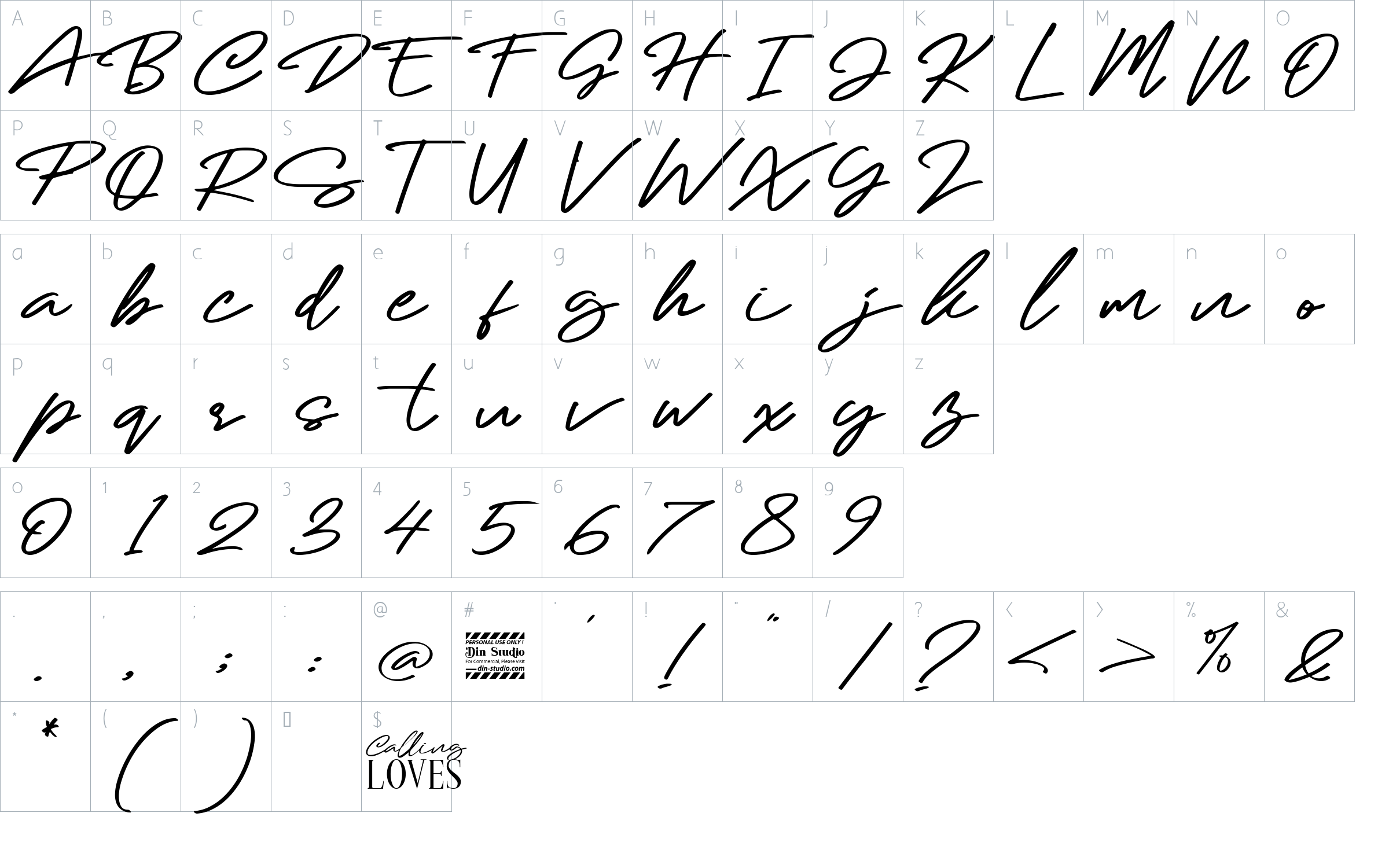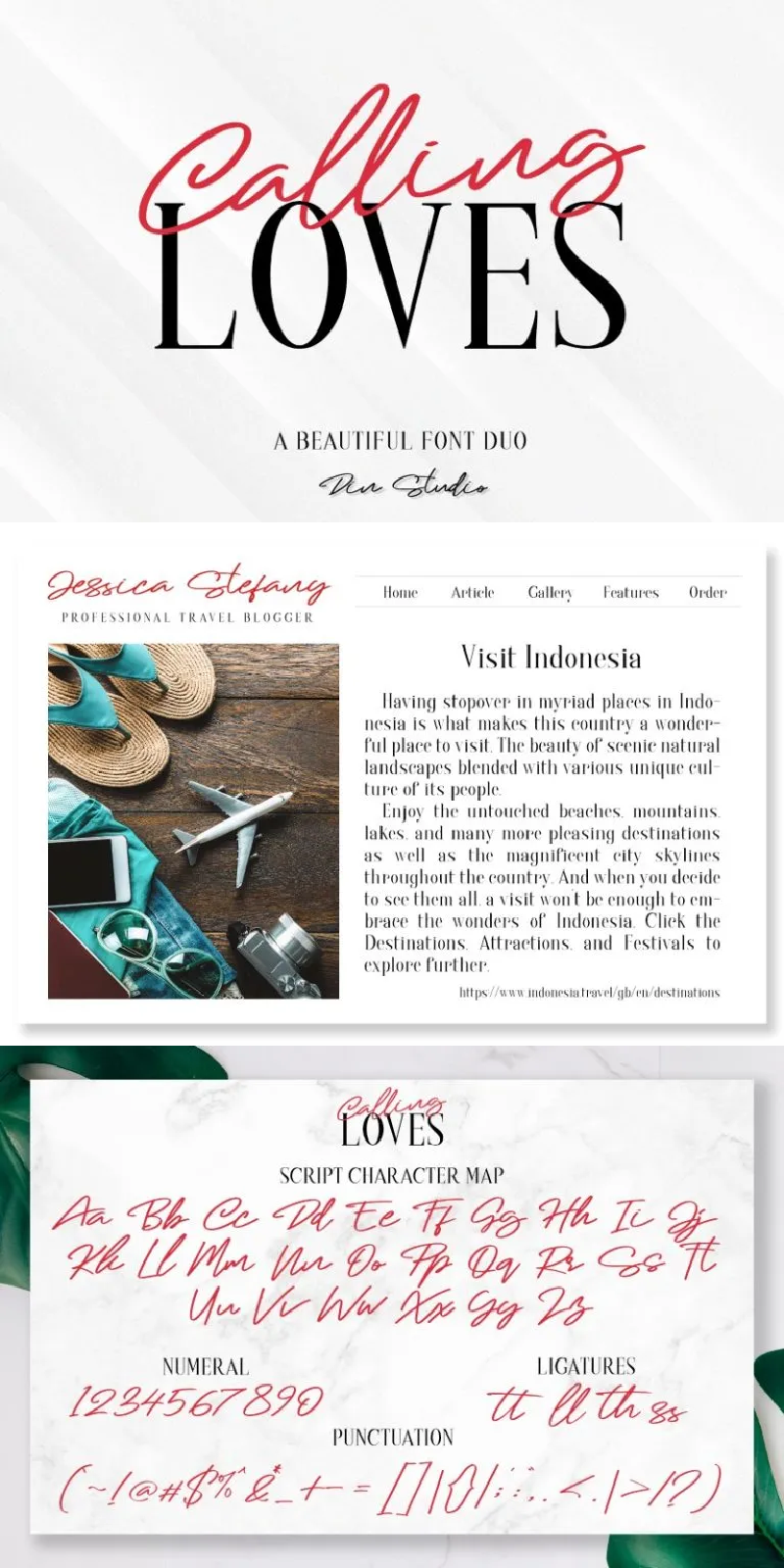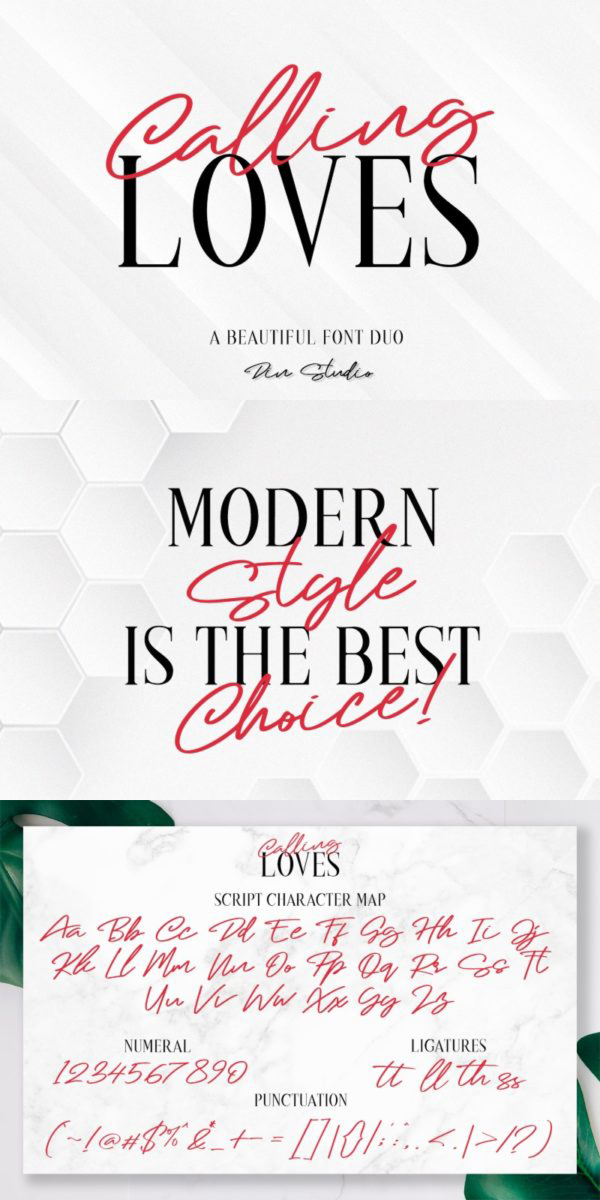
Calling Love Font
About Calling Love
Hello, Guys! Say hello to Calling Loves! Calling Loves is a beautiful font duo, designed with modern style. The combination of script and modern serif will make your design more beautiful. It’s suitable for branding, web design, personal signature (logo) and many other modern designs. See the previews above to get some inspiration on how you can use them. Happy Designing!
- Ligatures (in script fonts)